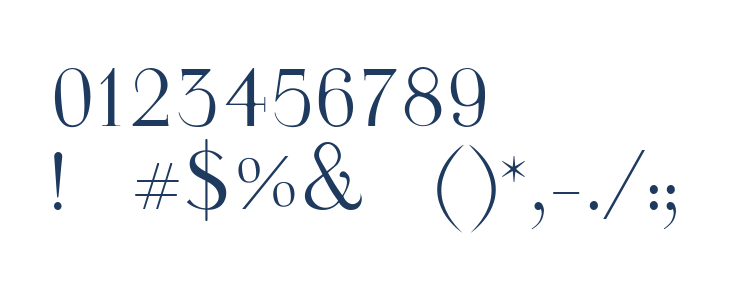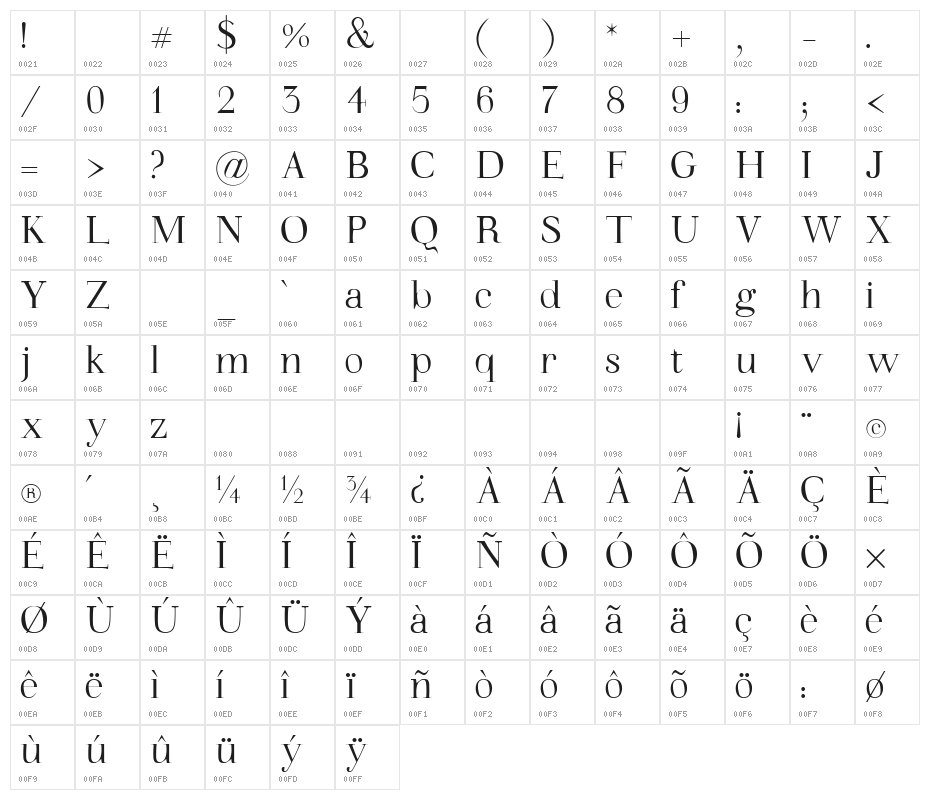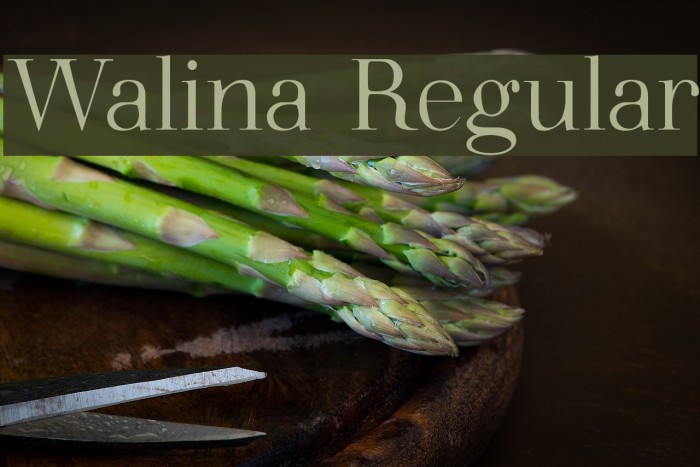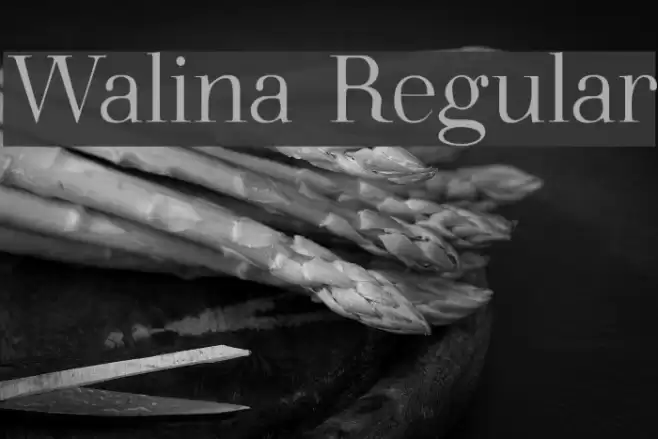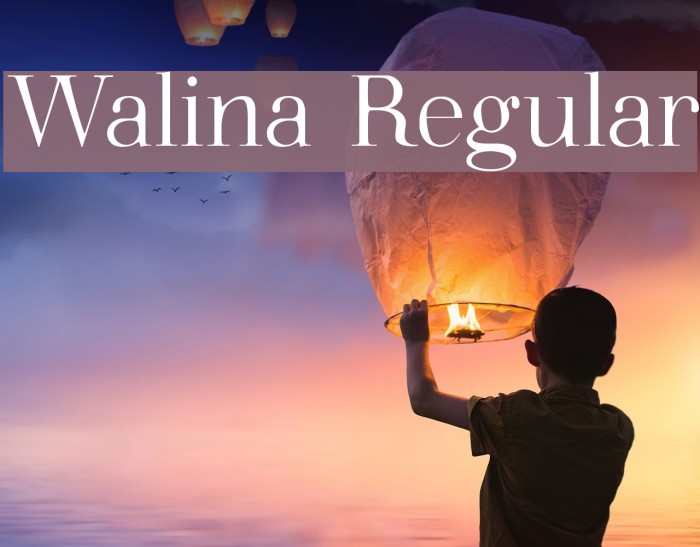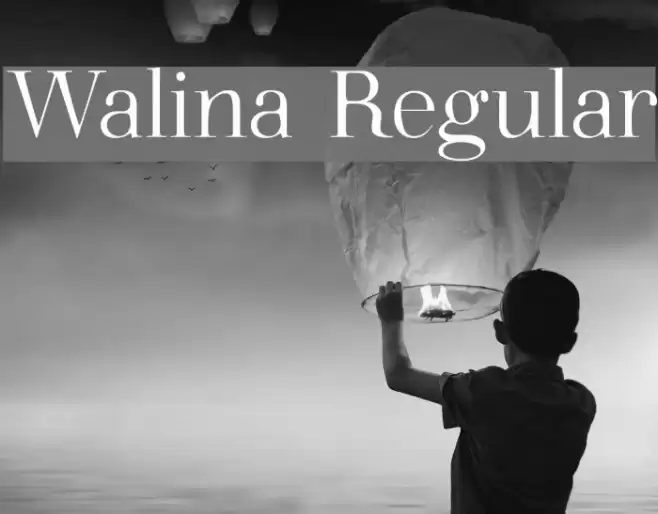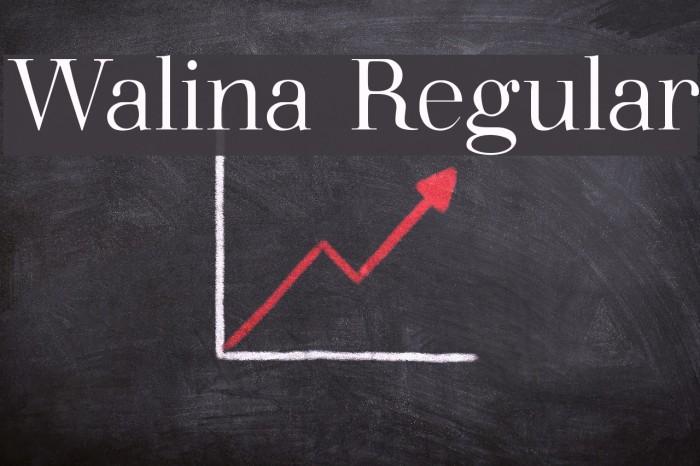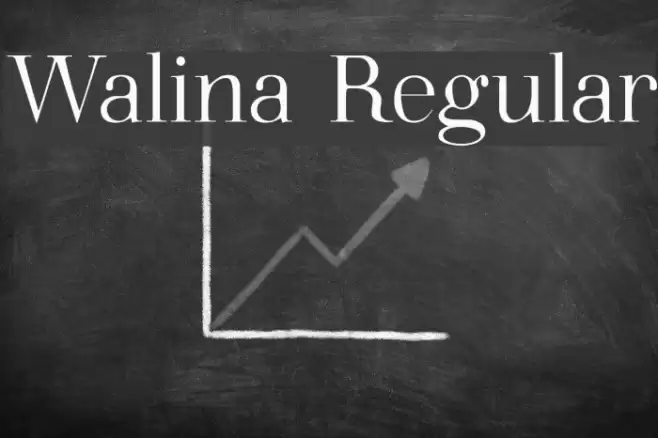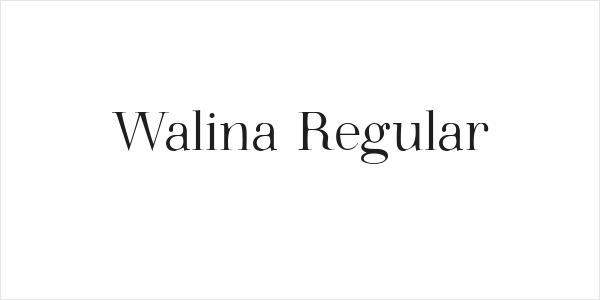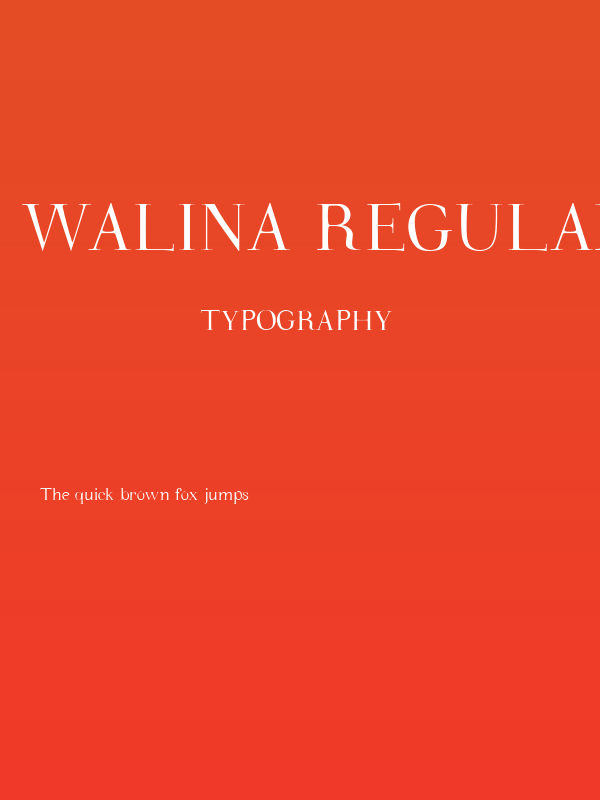
Walina Regular Font
Walina Regular Description
This font exhibits a classic serif style with elegant and refined strokes. The uppercase letters are well-proportioned, featuring sharp serifs that add a touch of sophistication. The lowercase letters maintain a consistent style, with smooth curves and a balanced appearance. The numerals are clear and distinct, making them easily readable. Special characters are designed with the same attention to detail, ensuring a cohesive look across all glyphs. This font's overall aesthetic is timeless, making it suitable for a variety of design applications.
| Proposed Projects | Ideal for editorial design, book covers, formal invitations, and branding projects that require a touch of elegance. |